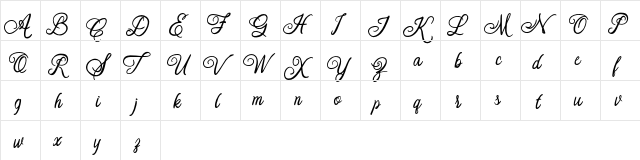
Orlandia FREE Regular
Design Context for Orlandia FREE Typeface
Orlandia FREE is a composed and adaptable typeface that performs quietly and consistently across a wide range of design contexts.